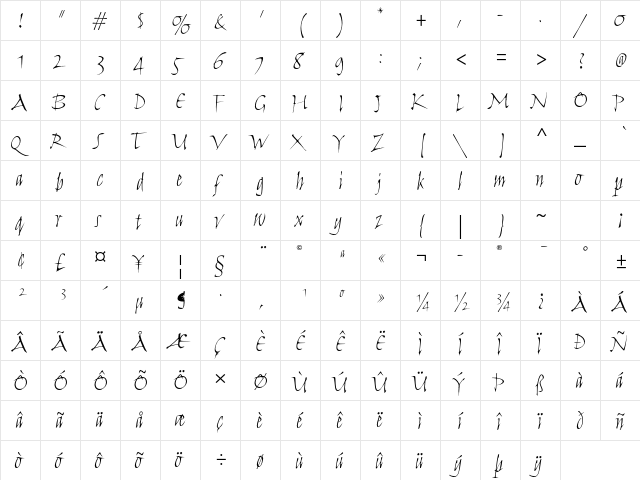
Humana Script ITC Std Light
| Designer | Timothy Donaldson |
Design Context for Humana Script ITC Std Typeface
Humana Script ITC Std flows with the natural rhythm of handwritten lettering, making it ideal for designs that call for warmth and personal expression. Its slender proportions lend an understated elegance to any composition.
Font Pairing: Combine Humana Script ITC Std with a simple geometric sans for maximum contrast — the tension between flowing curves and clean structure is a classic typographic pairing.
Pro Tip: Use Humana Script ITC Std for short runs of text — names, titles, or taglines. Extended body copy in script faces tires the eye quickly.